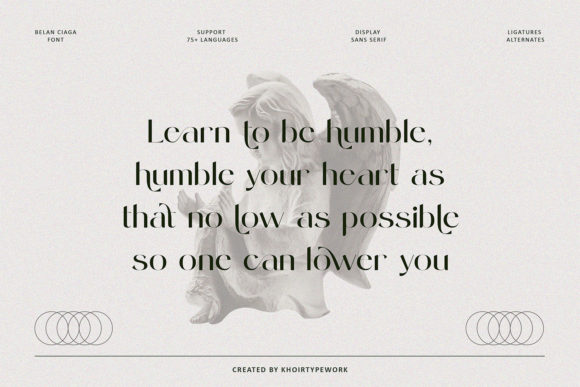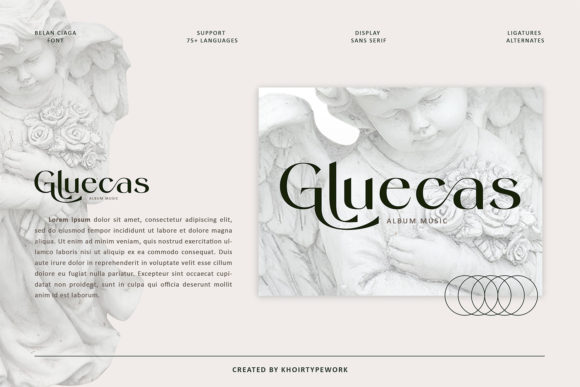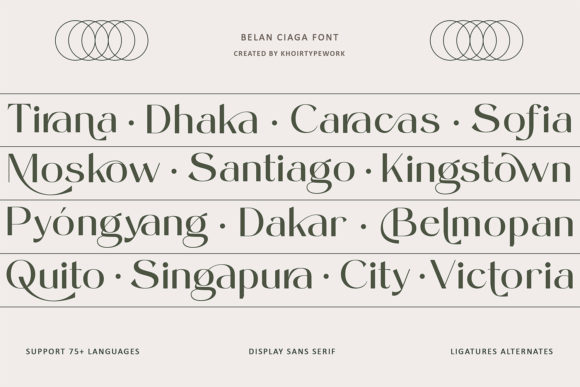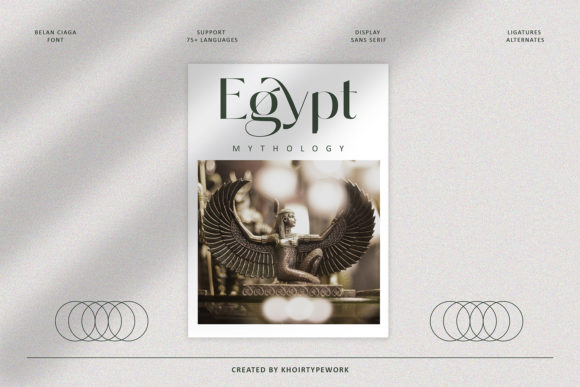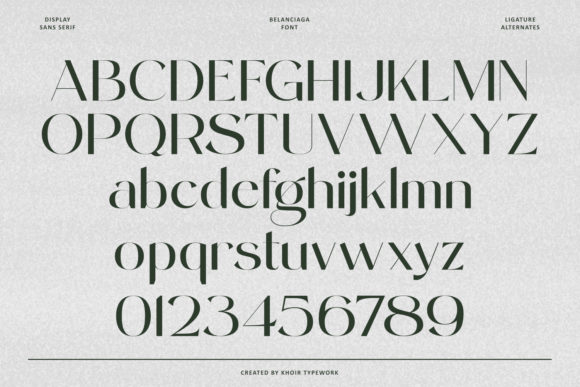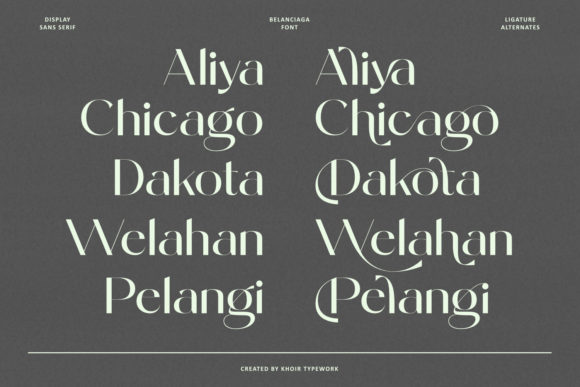
Discover the Perfect Font to Elevate Your Designs
As a designer, there’s nothing quite like that moment when everything comes together – the perfect combination of colors, typography, and composition. It’s a rush of excitement and pride, knowing you’ve created something truly special. But, let’s be honest, finding the right font can be a challenge. That’s where the Belanciaga Font comes in – a stylish and elegant sans serif font that’s sure to take your projects to new heights.
Brought to life with classy calligraphic influences, the Belanciaga Font exudes a sense of sophistication and refinement. Its modern and fresh design makes it the perfect choice for designers looking to create stunning visual experiences. Whether you’re working on a branding project, a website, or a magazine spread, the Belanciaga Font is sure to bring a touch of elegance to your work.
Belanciaga Font Key Features
- Font Family: Belanciaga Font
- Unique Characteristics: Features a modern, elegant design with a unique blend of geometric and organic elements, making it suitable for various design applications, including logos, branding, and typography
Belanciaga Font Review
As a designer, I was excited to try out the Belanciaga font. Here’s my honest review:
- The Belanciaga font has a beautiful, elegant feel to it. It’s perfect for use in high-end branding, luxury products, or sophisticated designs.
- The font has a wide range of weights, from light to bold, making it versatile for various design applications.
- The font’s letterforms are well-crafted, with subtle details that add to its sophistication.
- The font may not be suitable for use in body text, as it can be quite ornate and may be difficult to read at smaller sizes.
- The font’s high contrast between light and dark areas may make it challenging to use in designs with complex background patterns or images.
- The font’s style may not be to everyone’s taste, as it’s quite unique and may not appeal to those who prefer more classic or minimalist designs.
The Belanciaga font is a beautiful, high-end font that’s perfect for use in sophisticated designs. While it may have some limitations, its elegance and versatility make it a great addition to any designer’s toolkit.
Tips for Getting the Most Out of Belanciaga Font
Belanciaga Font is a unique and stylish font that can add a touch of sophistication to your designs. Here are some tips for getting the most out of it:
- Use it for titles and headings to create a strong visual impact.